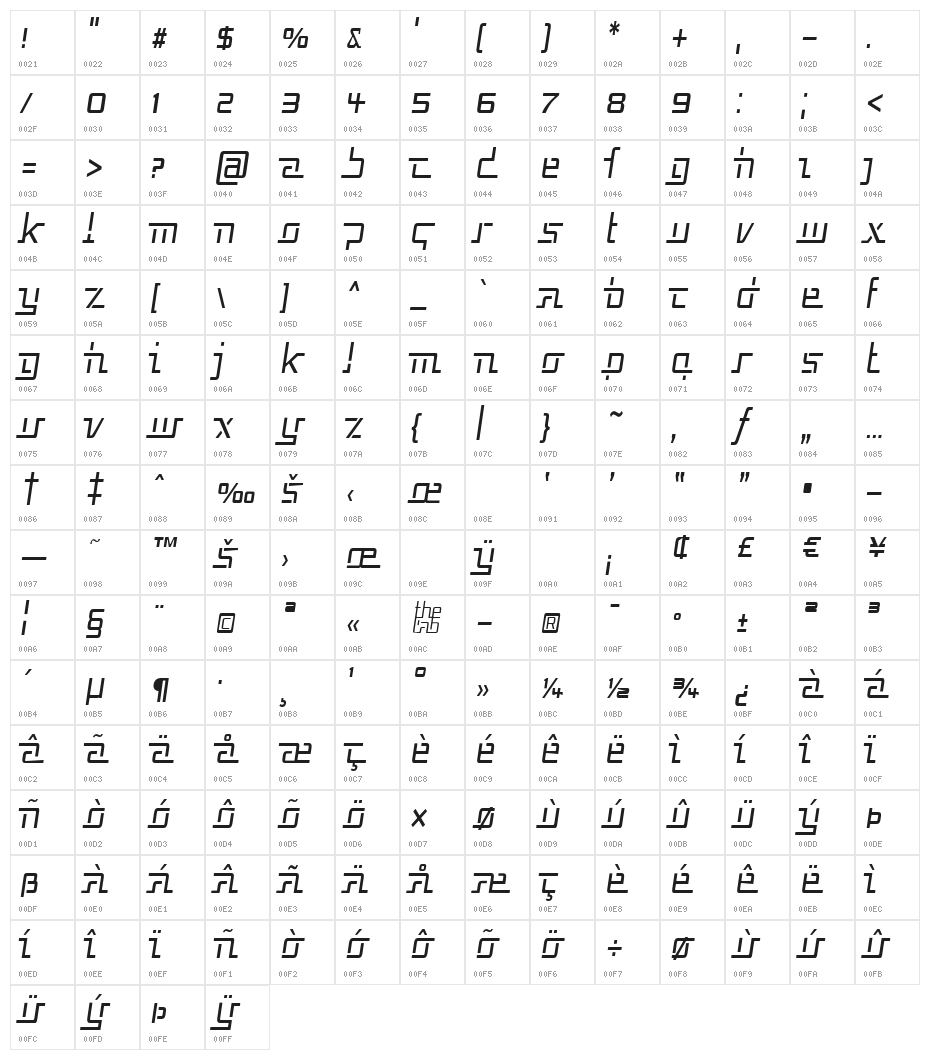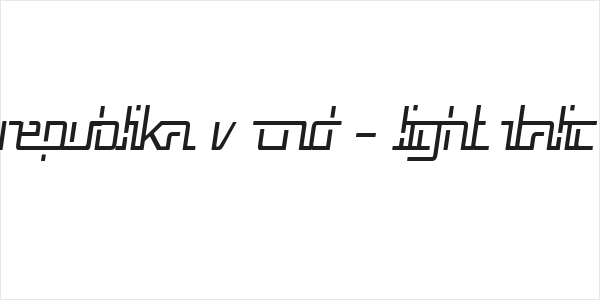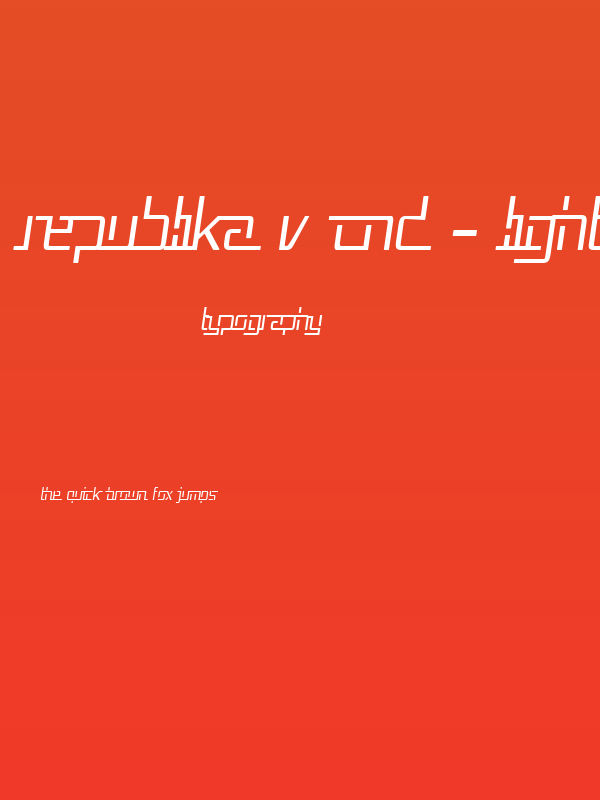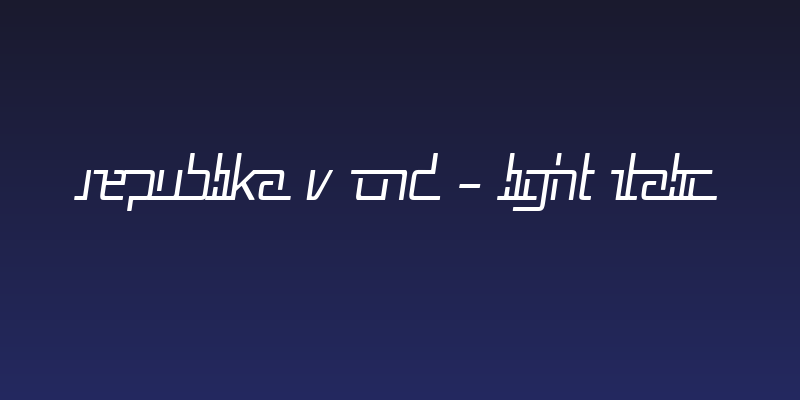
Republika V Cnd - Light Italic Font
Republika V Cnd - Light Italic Description
This font features a sleek, modern design with a condensed and italicized style. The characters are formed with a consistent stroke width, giving it a uniform appearance. The letters have a futuristic and technical feel, with sharp angles and clean lines that create a sense of movement and speed. The spacing between characters is tight, enhancing its compact look. This font is ideal for projects that require a contemporary and dynamic aesthetic, such as technology branding, sports team logos, or modern advertising campaigns.
Use CaseLogos, Headlines
Proposed ProjectsIdeal for technology branding, sports team logos, and modern advertising campaigns.